Font licensing explained for commercial use in product packaging is an important topic for every brand owner, designer, and creative business that wants to launch products safely and professionally. A font may look perfect on a skincare label, snack pouch, candle box, or beverage can, but before using it commercially, you need to understand whether the license allows that kind of use.
Product packaging is not just a design asset. It is part of the product itself. It appears on shelves, online shops, social media posts, ads, and sometimes even exported products. That is why choosing the right font is not only about style. It is also about legal permission, brand consistency, and long-term business safety.
Why Font Licensing Matters for Product Packaging
When you download or purchase a font, you are not actually buying the font software completely. You are buying the right to use it under certain conditions. These conditions are explained in the font license.
For personal projects, font rules are usually more limited. However, product packaging is for commercial use because the design is connected to a product that will be sold. If you use a font on a label, box, pouch, bottle, or product tag, you need a license that clearly supports commercial use.
A proper license helps protect your brand from legal issues. It also gives your packaging designer confidence when creating logos, labels, and marketing visuals.
What Counts as Commercial Use in Packaging?
Commercial use means using a font for anything related to selling, promoting, or representing a business. In product packaging, this can include:
- Product labels
- Boxes and cartons
- Food and snack packaging
- Skincare and cosmetic labels
- Beverage cans or bottles
- Candle, soap, or perfume packaging
- Hang tags and stickers
- Promotional packaging mockups
Even if your product is still small or handmade, it is still commercial if it is sold. This is why small business owners should not ignore font licensing.
Common Font License Types You Should Know
Desktop License
A desktop license usually allows designers to install the font on a computer and use it to create static designs. This often includes packaging design, logos, posters, and print materials. For many product packaging projects, a desktop commercial license is the most common option.
Webfont License
A webfont license is used when the font appears on a website as live text. This is different from using the font in a packaging mockup image. If your brand also wants to use the same font on its website, you may need a webfont license.
App or Digital Product License
If the font is used inside an app, software, game, or digital product interface, you may need a special license. This is usually not required for printed packaging, but it matters if your brand expands into digital products.
Extended License
Some fonts require an extended license for high-volume production, resale items, or special commercial usage. If your packaging will be printed in large quantities, always read the license carefully before launching.
How to Choose Fonts for Product Packaging
The right packaging font should match your product personality. A skincare brand may need something elegant and soft. A snack brand may need something bold, playful, and energetic. A handmade product may need a rustic or natural font.
Woodzy
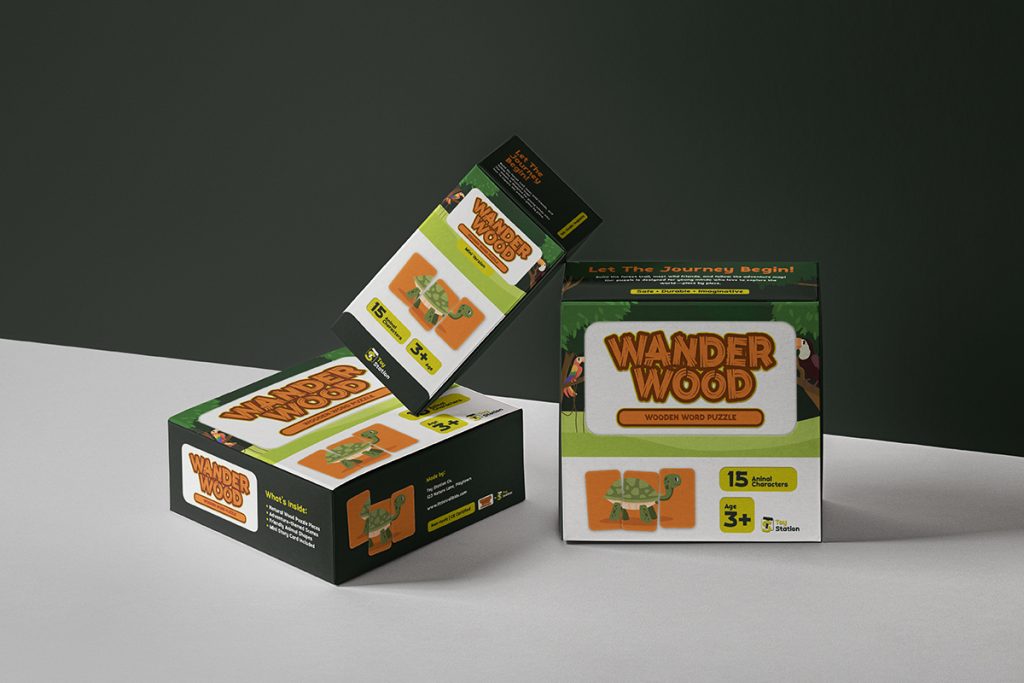
Ranventure
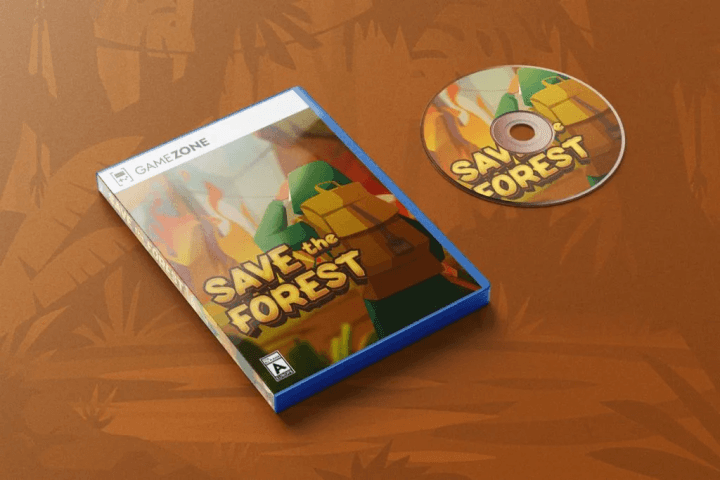
Boldova
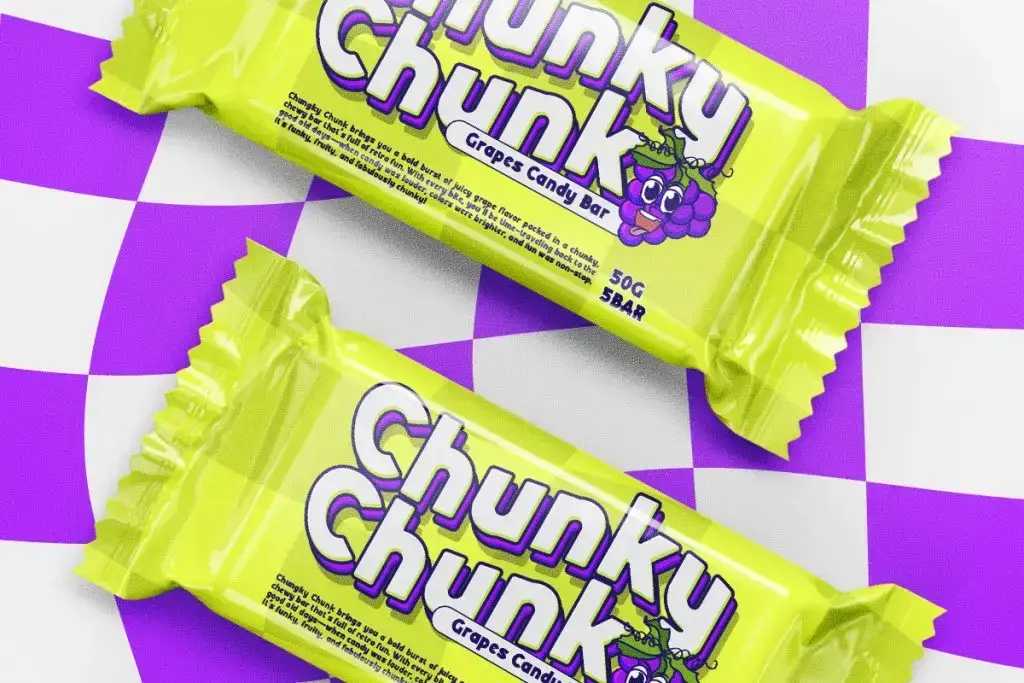
Chubzy
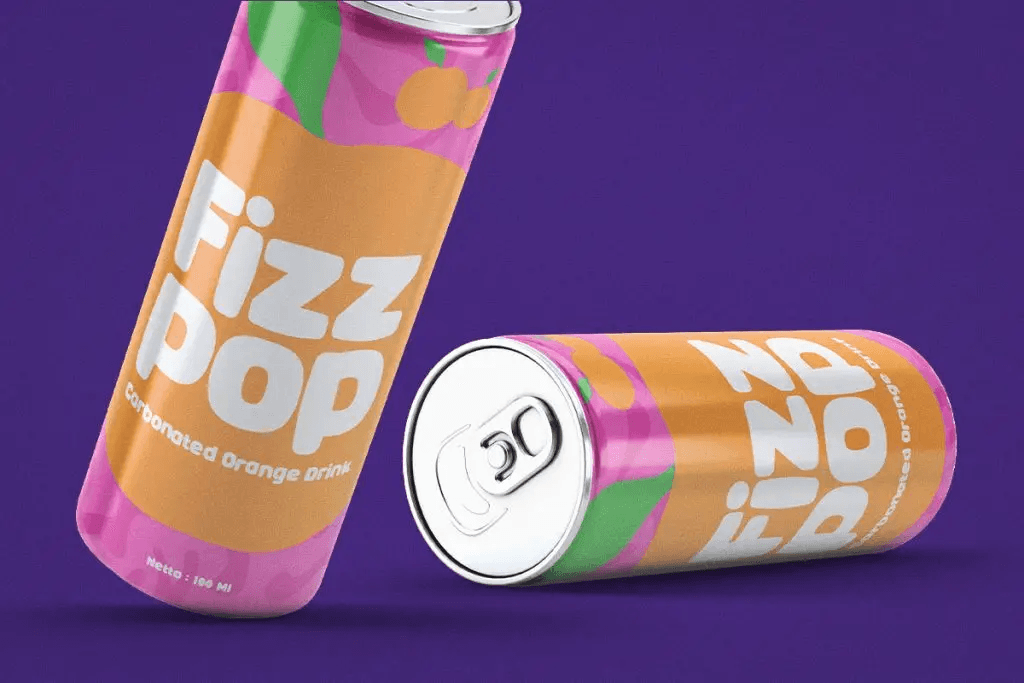
Freakdrip
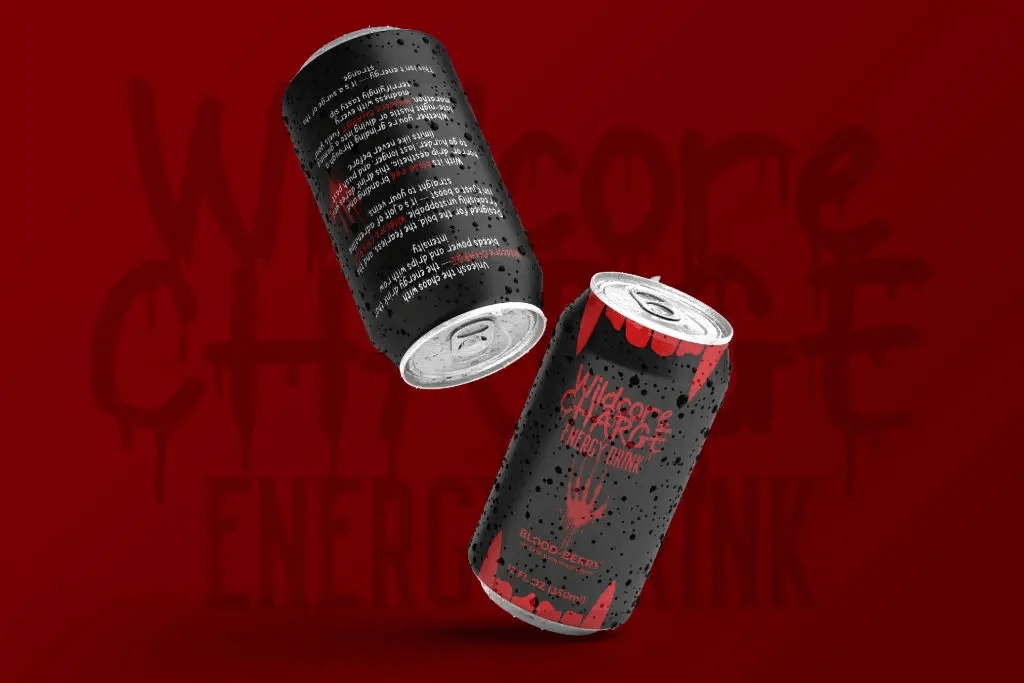
Glibby
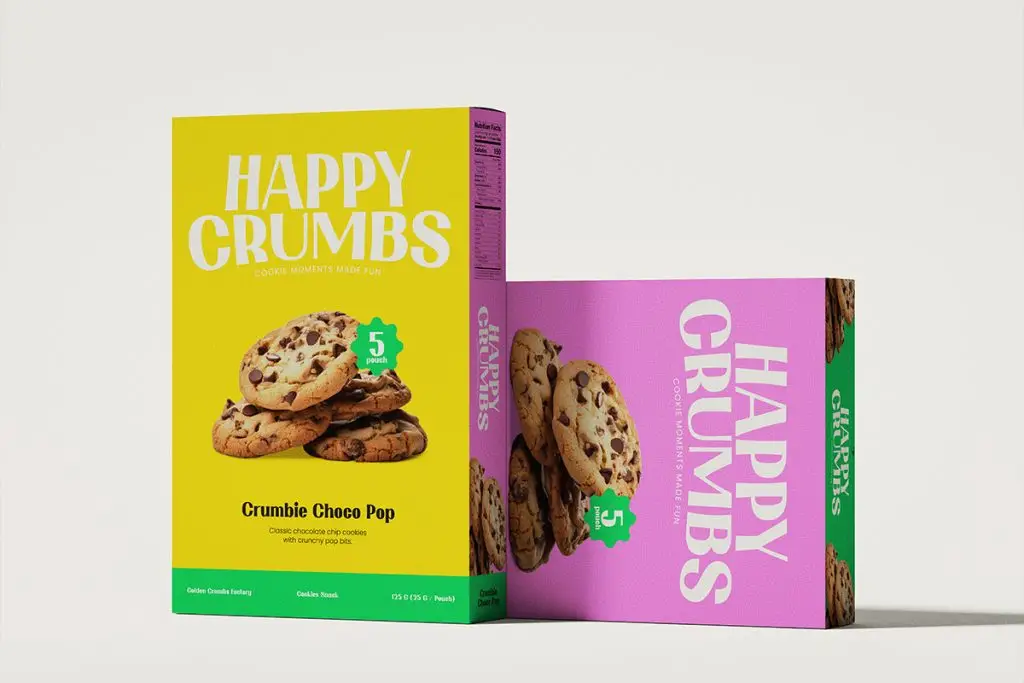
Sterla
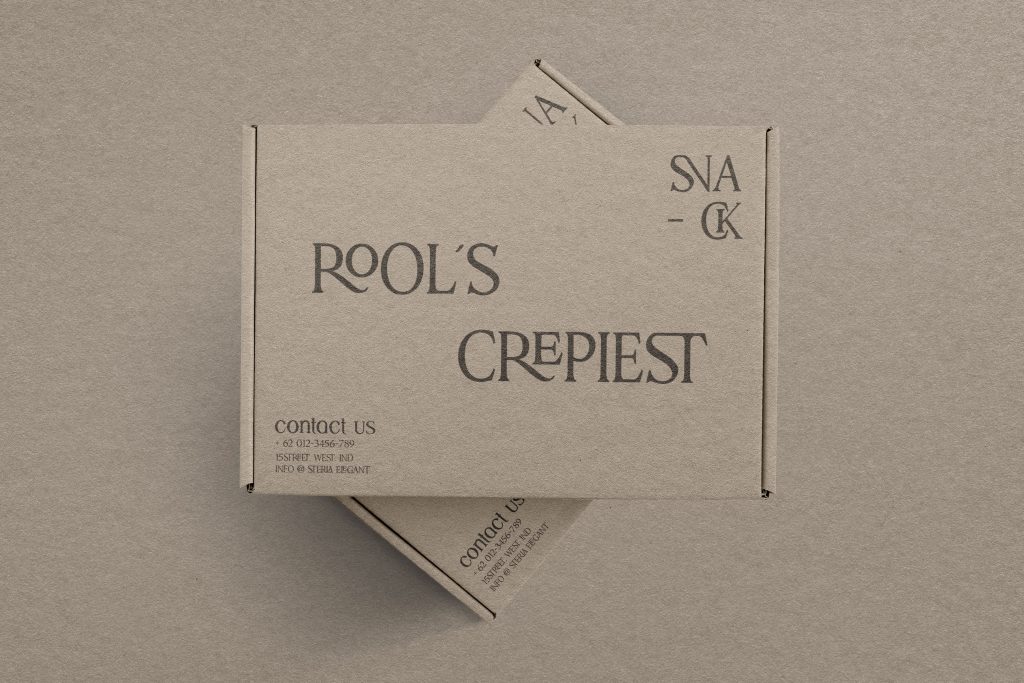
Snaklet
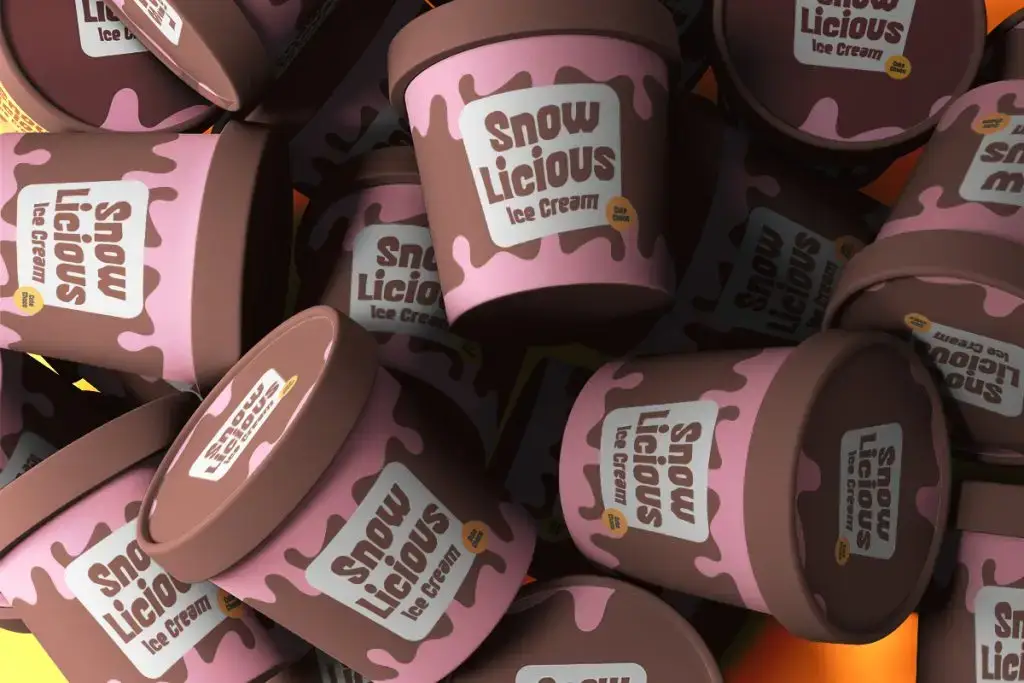
Slime Rage
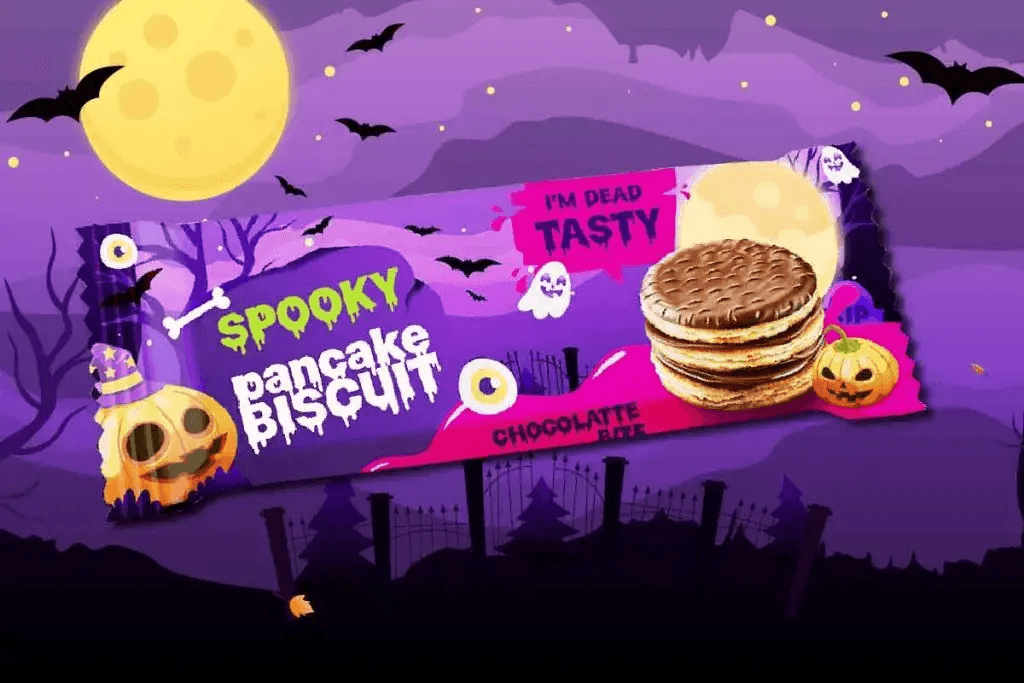
Font Licensing Tips Before Launching Packaging
Before you send your packaging design to print, check the font license again. Make sure it allows commercial use, printed packaging, and the number of products you plan to produce.
Also, keep proof of purchase or license documentation. This is useful if your brand grows, works with distributors, or collaborates with bigger retailers later.
If you hire a designer, ask whether the fonts used in the design are properly licensed. Do not assume that every font used in a design file is safe for commercial use.
Final Thoughts
Understanding font licensing explained for commercial use in product packaging may seem technical at first, but it is a simple way to protect your product and brand. With the right commercial font license, you can confidently use beautiful typography on labels, boxes, pouches, and other packaging materials.
Great packaging starts with the right visual identity. Font choice helps customers understand your product before they even read the details. Whether your brand feels natural, elegant, playful, bold, or edgy, choosing licensed fonts from Font Kingdom can make your packaging look more professional and ready for the market.